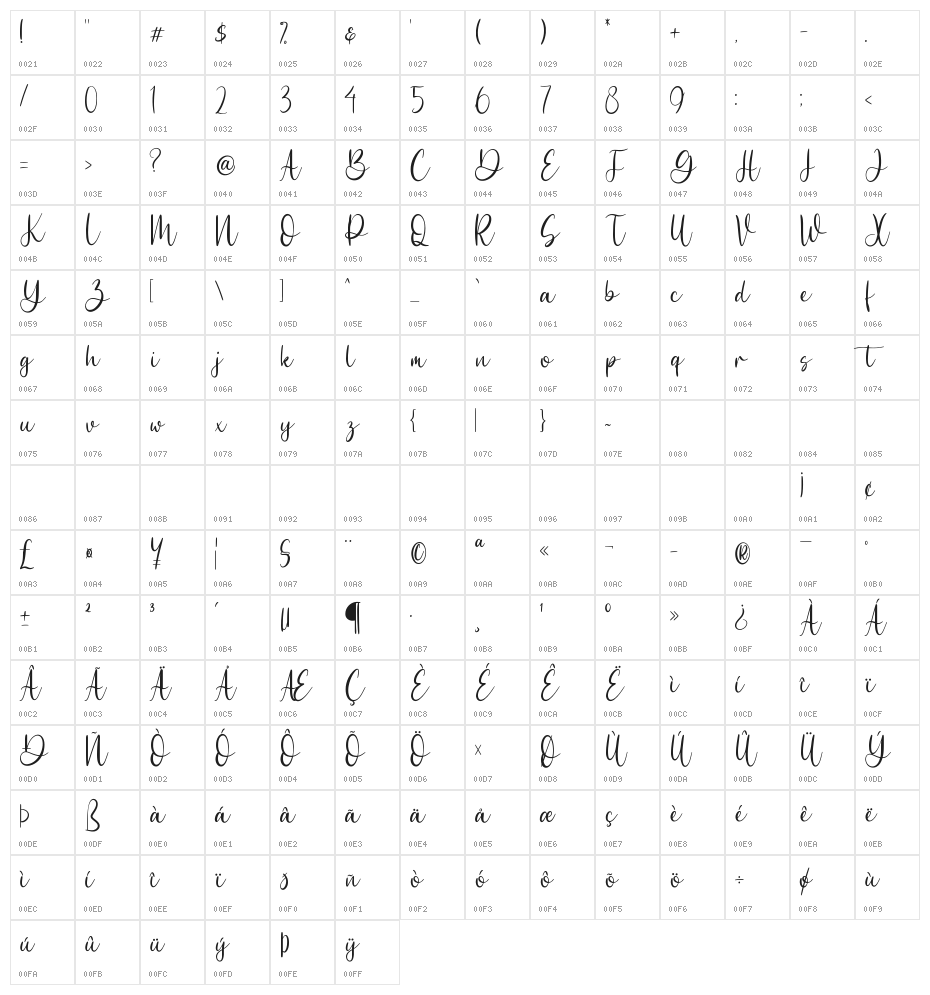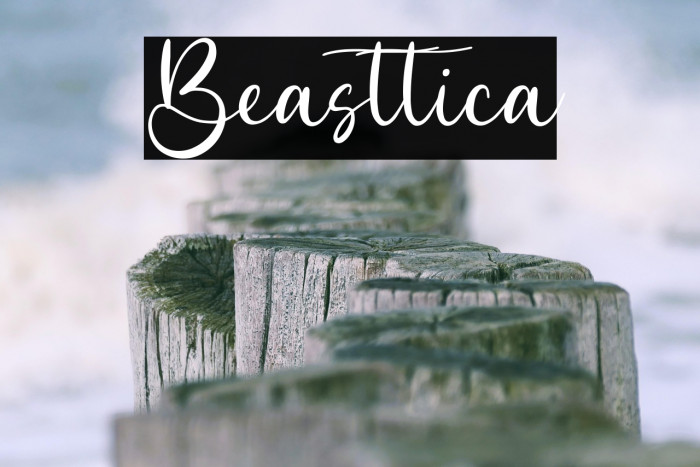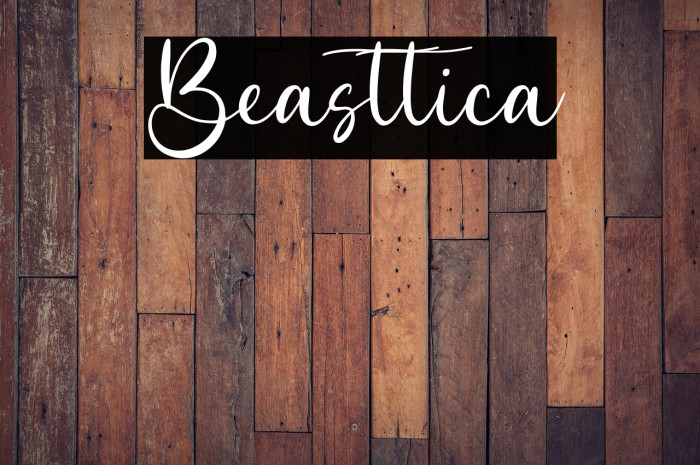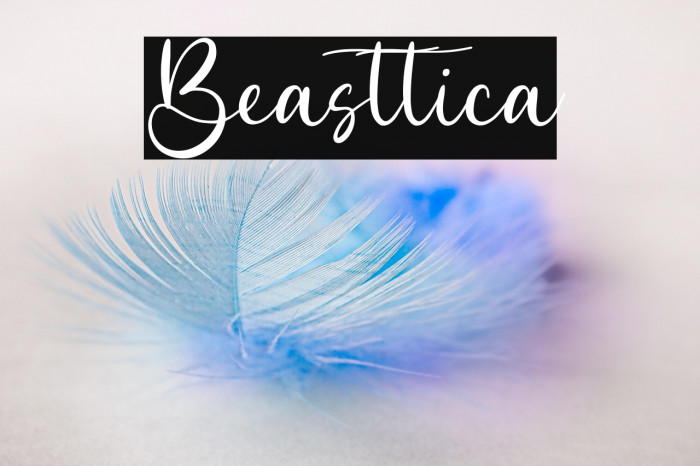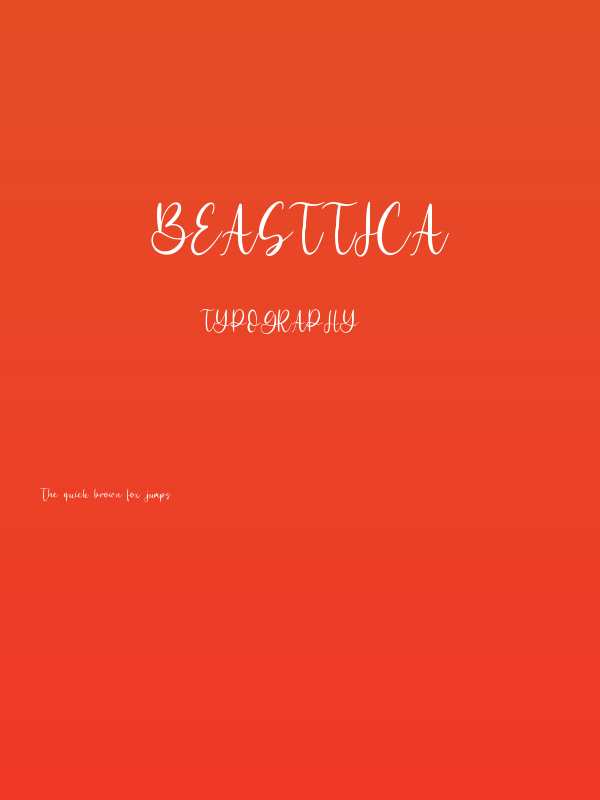
Beasttica Font
Beasttica Description
This font exudes a playful and elegant handwritten style, characterized by its fluid and connected strokes. The uppercase letters are tall and graceful, with a slight slant that adds a dynamic feel. The lowercase letters maintain a consistent flow, enhancing readability while retaining a casual charm. Numbers and special characters are crafted with the same attention to detail, ensuring uniformity across all elements. The overall appearance is both sophisticated and approachable, making it suitable for a variety of creative applications.
| Proposed Projects | Ideal for wedding invitations, greeting cards, personal branding, and social media graphics. |